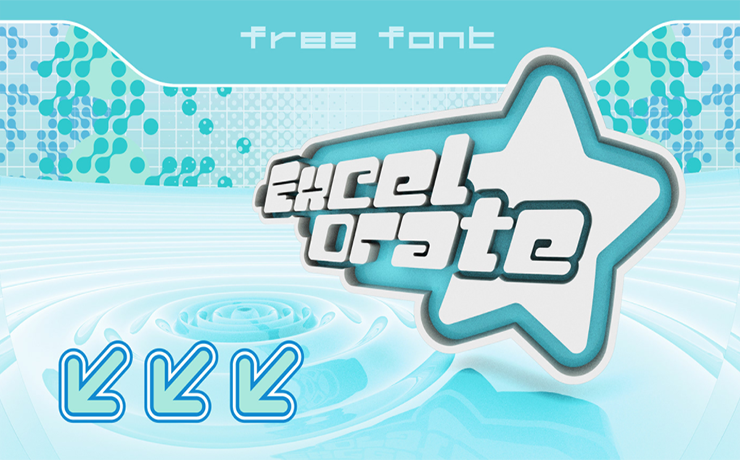
Y2K designs often used bright and loud colors. So if you’re creating a Y2K-inspired design, be sure to include Excelorate Display Font text.
It has bold and chunky text, with 3D effects. Jorge Villarreal is a graphic designer that is known as the primary designer of this font.
All the letters have randomly 3D effects, meaning that their structure does not follow straight lines. You can also use its letters in any project for adding sweetness.
When these characters combine work into any design, they will give a sweet and beautiful look. A reader feels satisfied while reading the whole structure.
With this unique font, you can create book covers, book paragraphs, unique emblems, special event cards, game graphics, product designs, product packaging, mugs, comic, cartoon posters, and more.